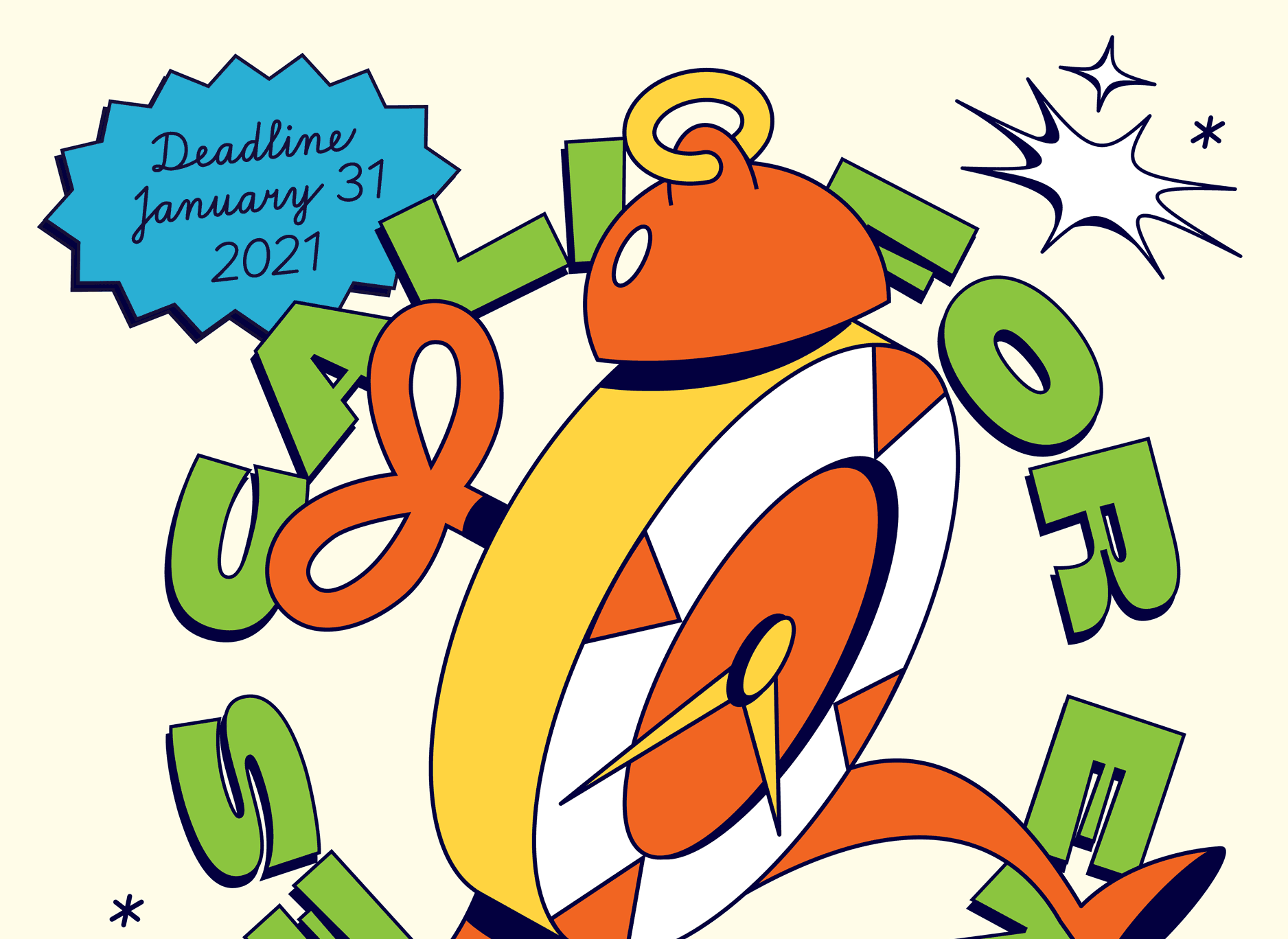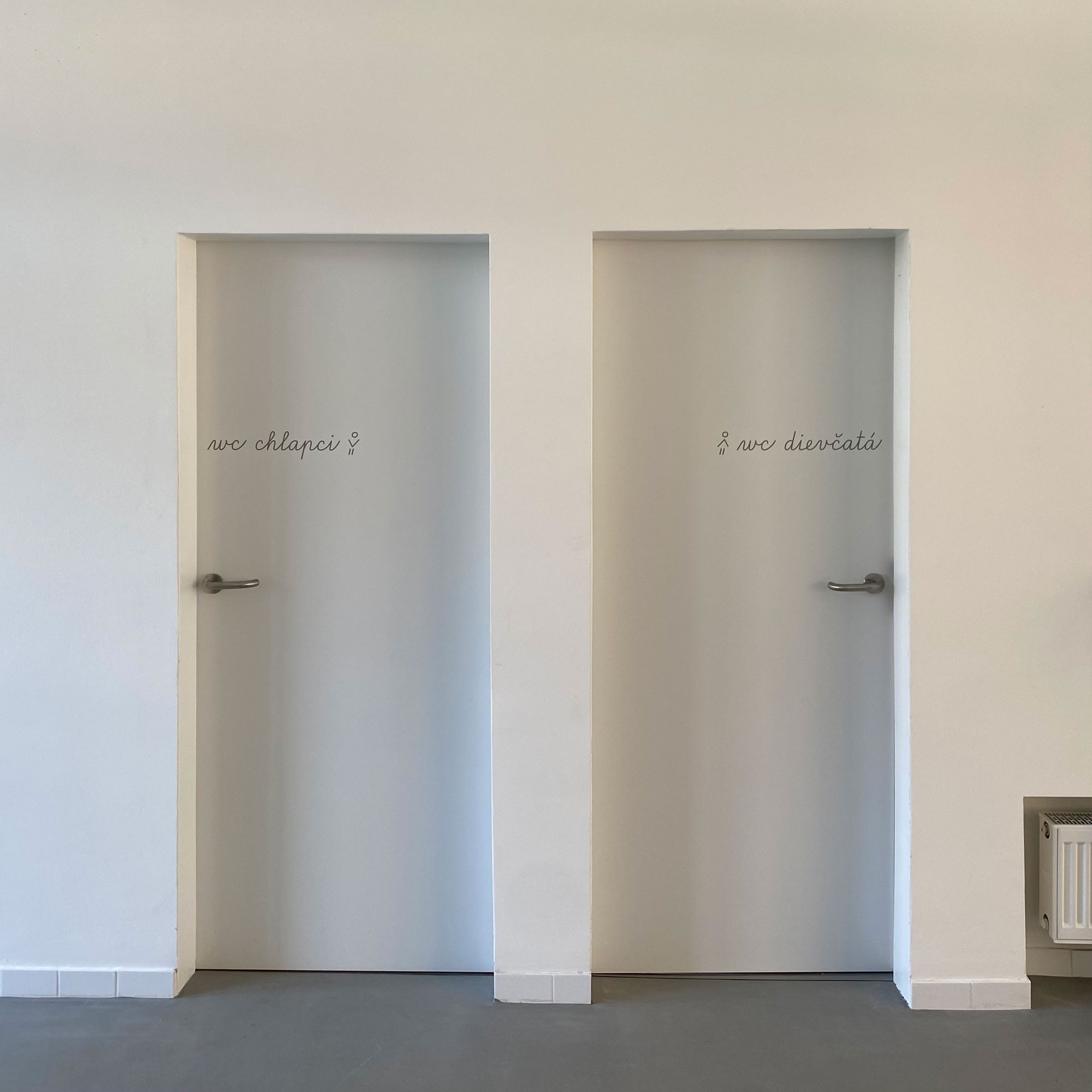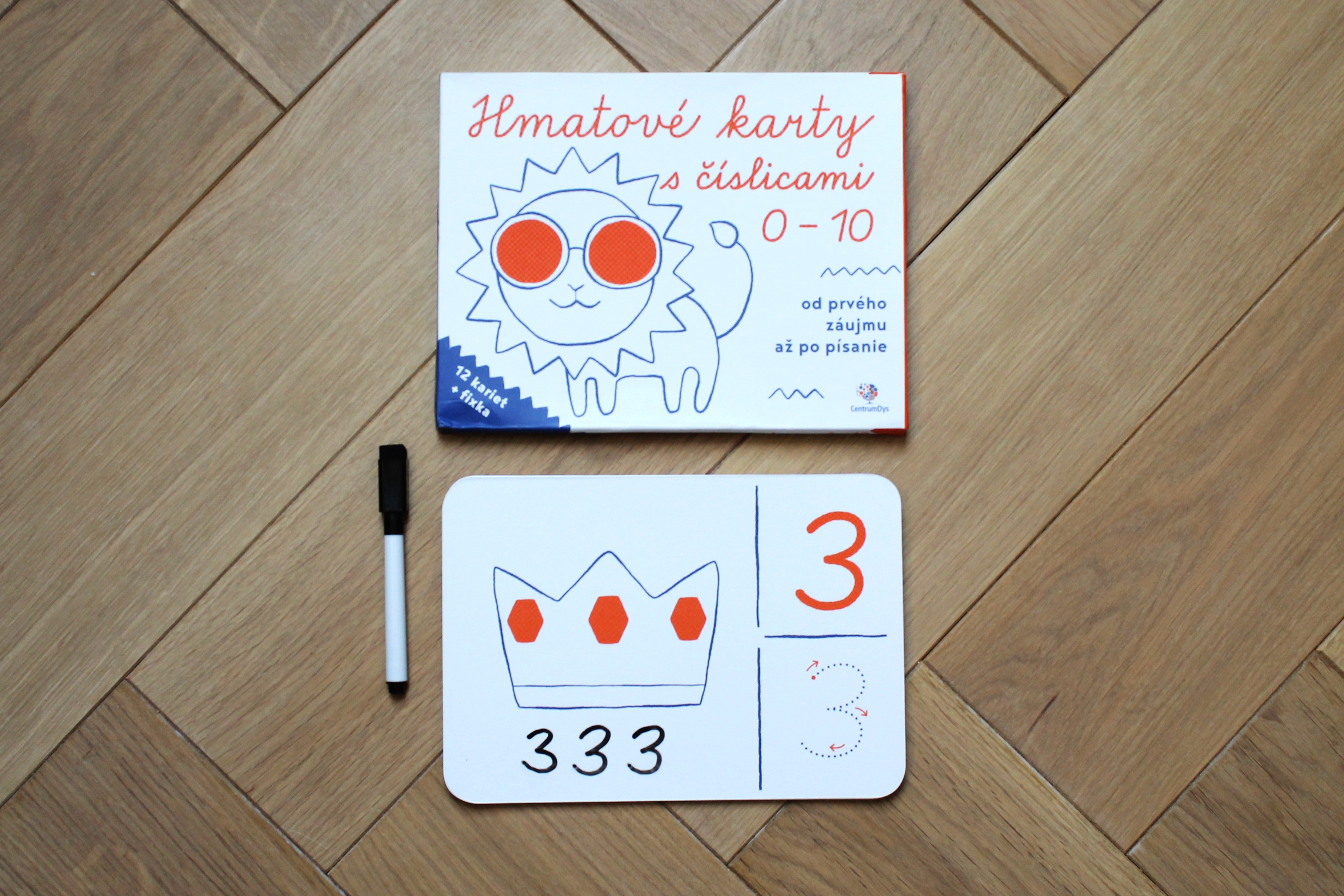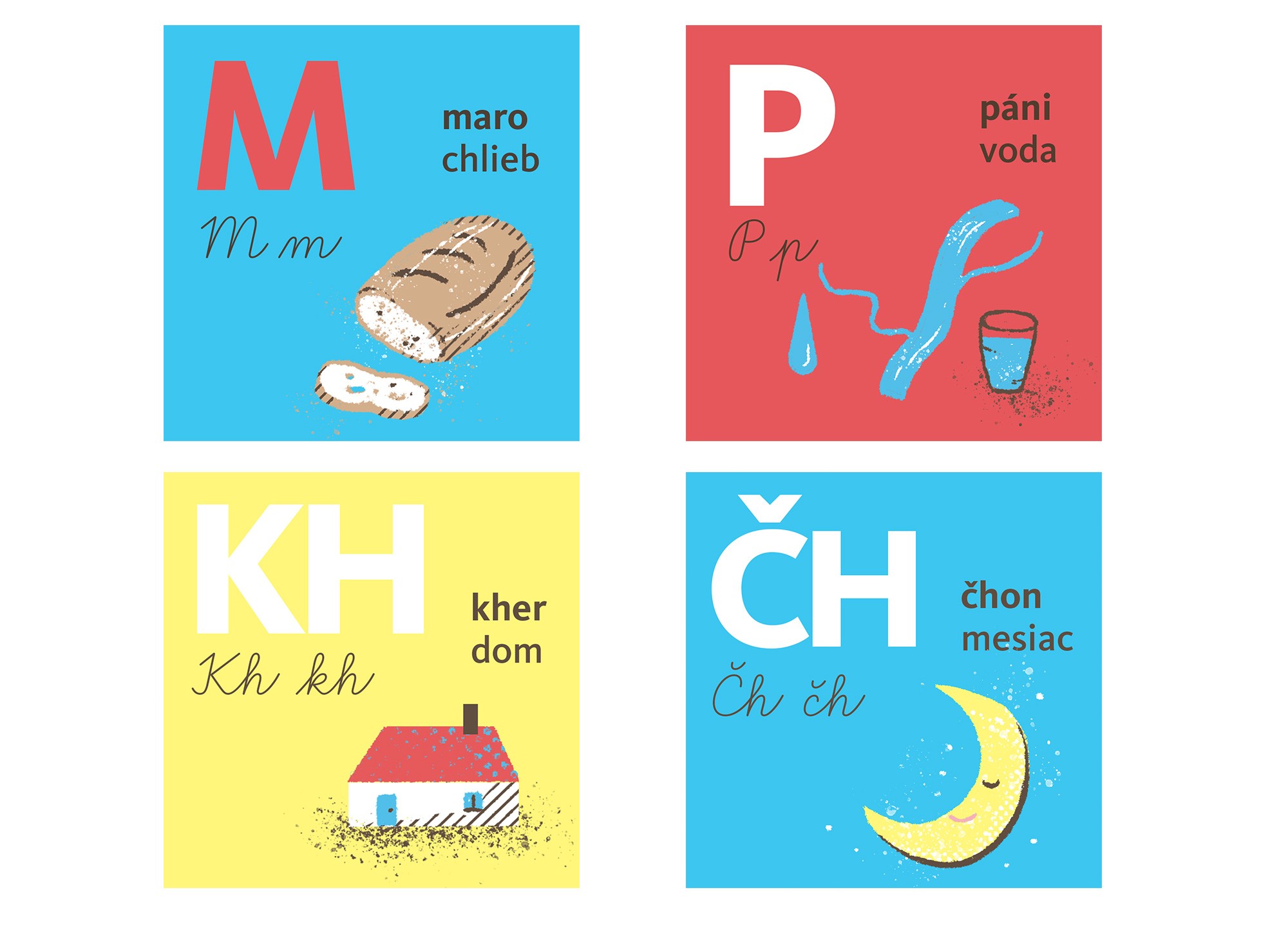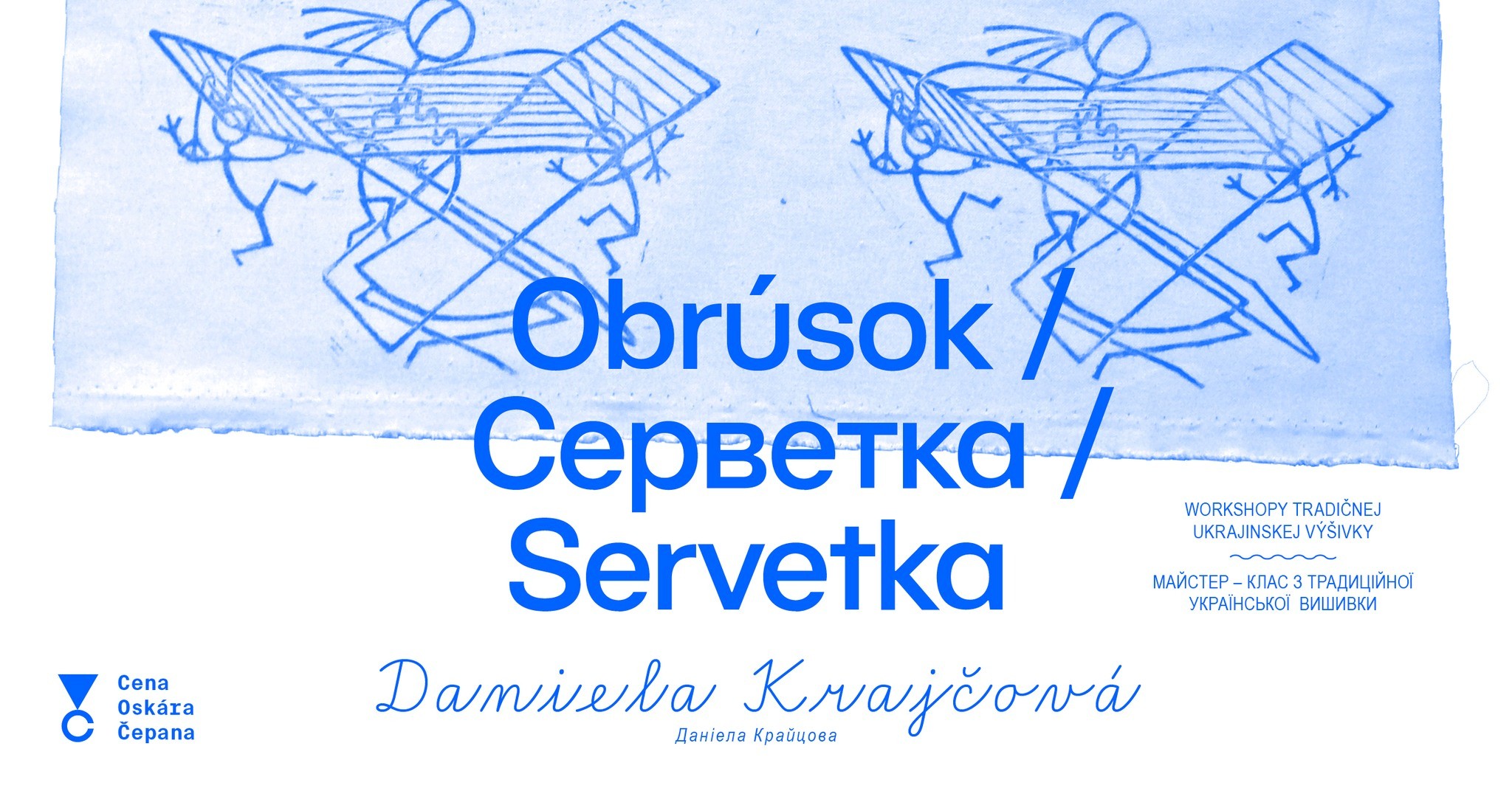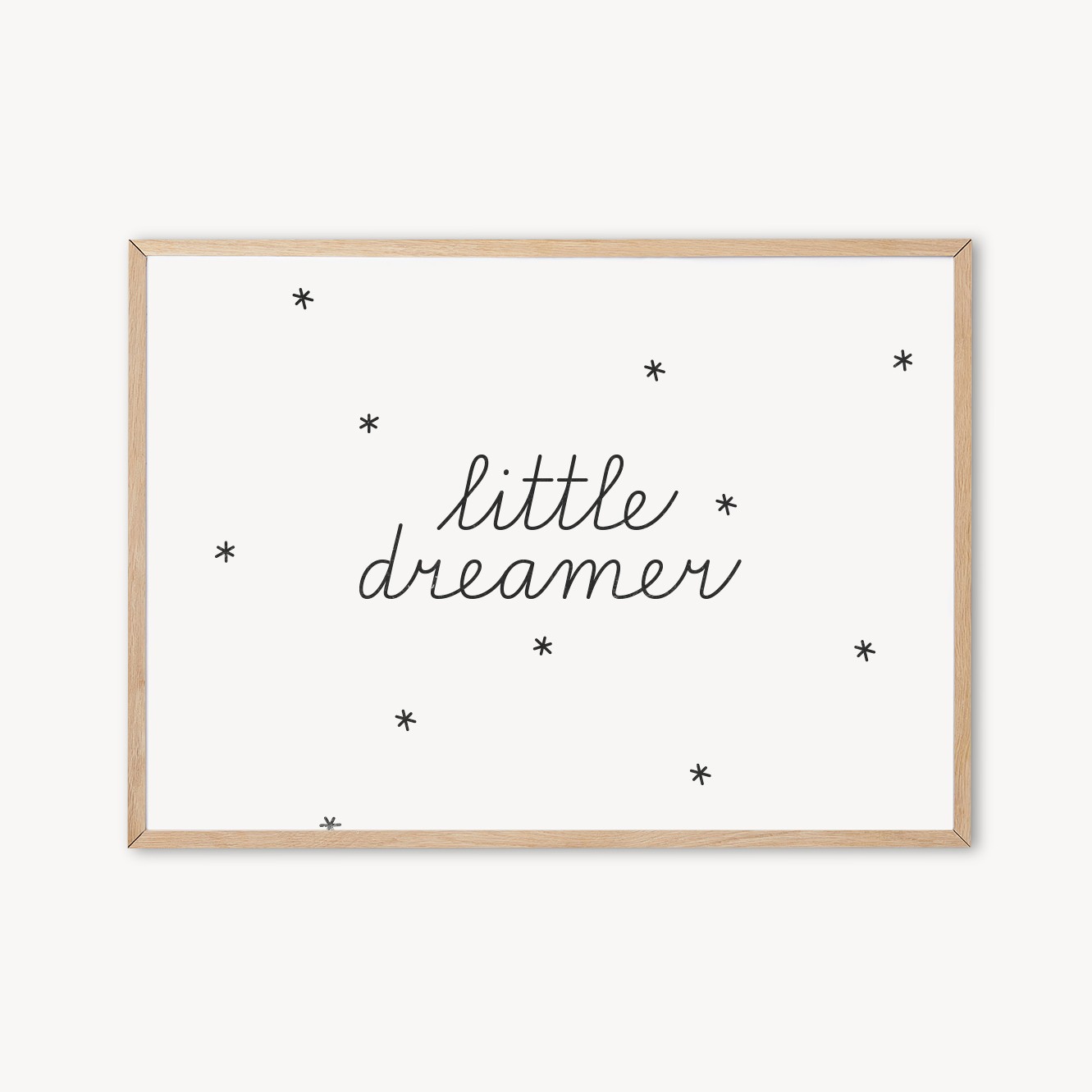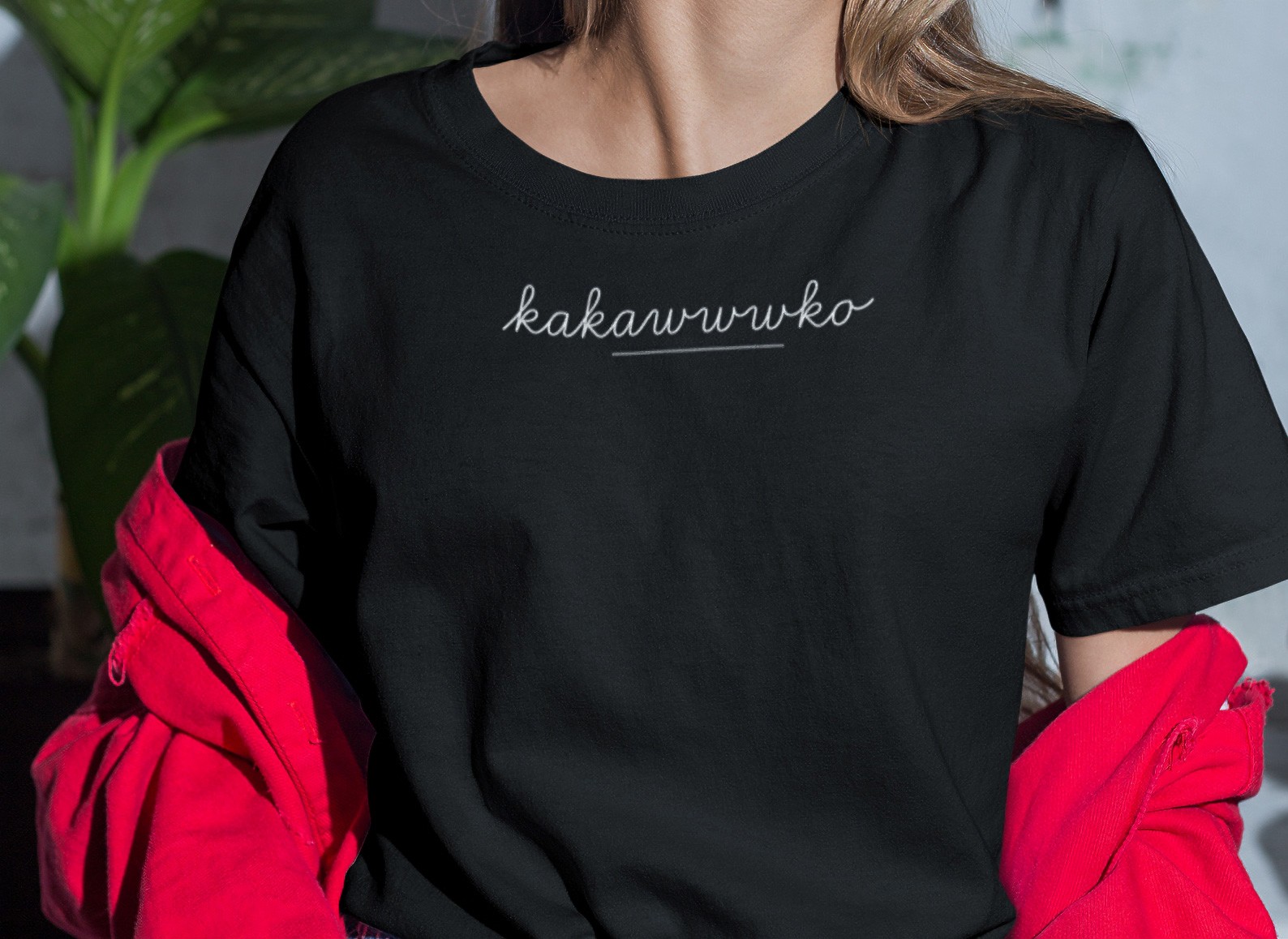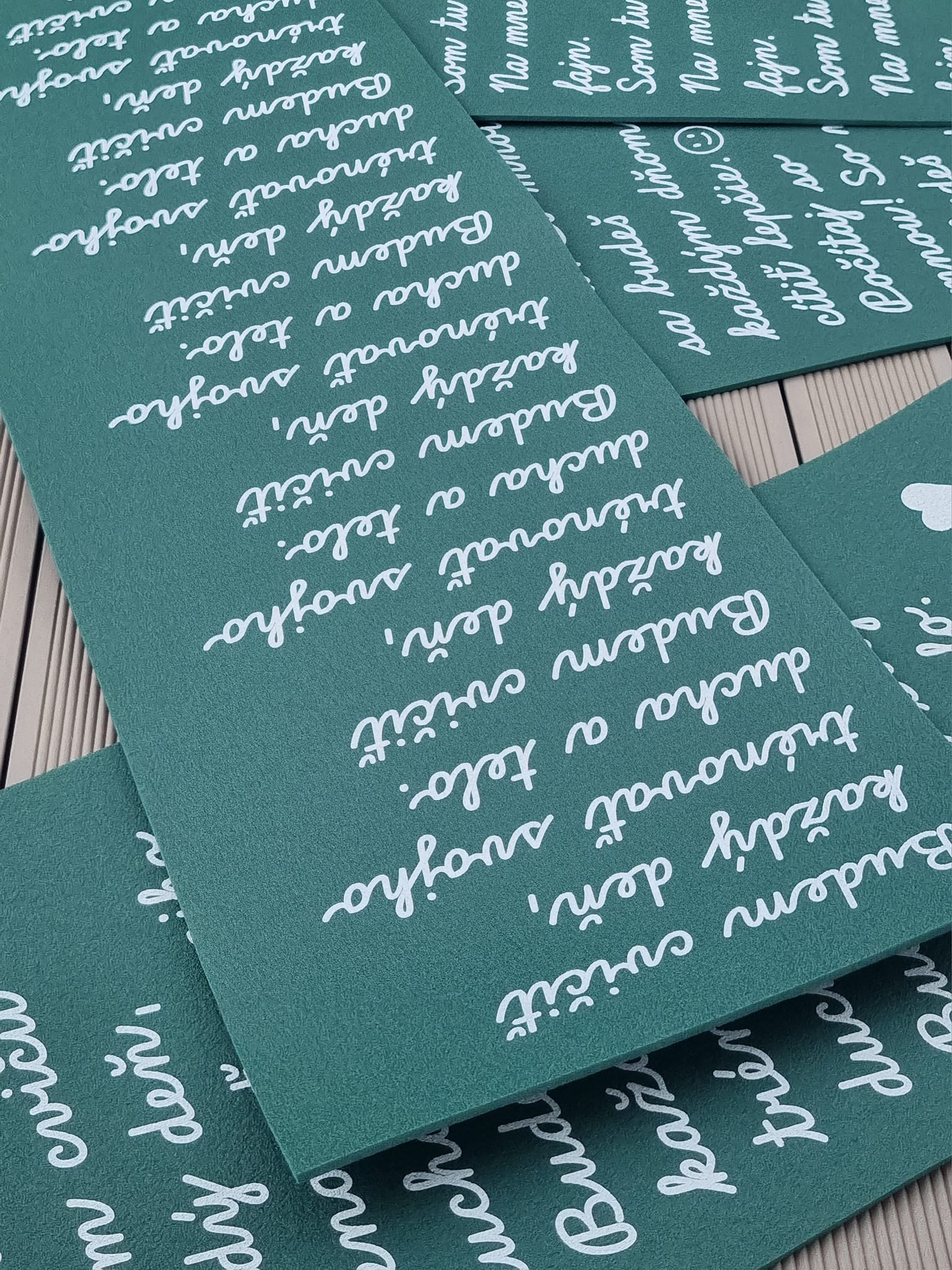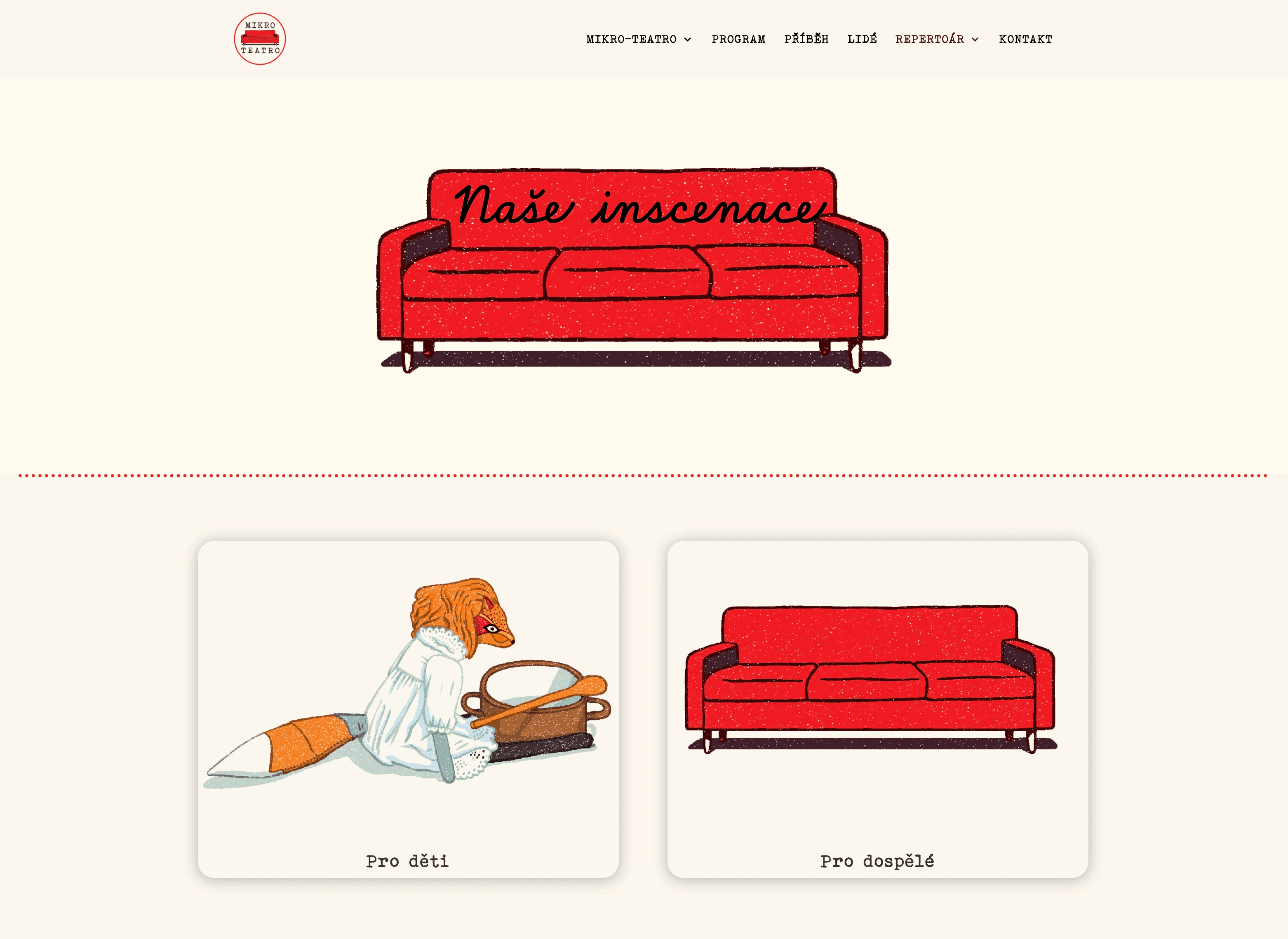
Contemporary digital version of slovak school type
About Skolske Typeface
Contemporary digital version
of slovak school type
Slovak handwriting type is used in schools for almost 100 years without any significant changes. However, it does not support features necessary in modern education process: it is not suitable for left-handers, children with learning disabilities and most importantly, no digital version is available.
Our project objective was not only to create digital version of the existing school type, but also modernisation and improved legibility suitable for better learning process and usability. We studied and analysed history of current school type and consulted new features with education experts.
The result is modernised digital school type Skolske. We are providing it free of charge to schools, graphic designers and publishing houses to support their mission for easier and modern education.
Two versions are available. Skolske Free (free for school printed materials) and Skolske Pro (for commercial products – print, web, apps and other uses). Skolske Free supports Slovak language. Skolske Pro supports European languages and contains figures and other necessary characters for typesetting.
Skolske Layers
Skolske Layers is additional font package for Skolske Family. It contains Lines, Dots, Beginnings and Arrows. Fonts can be combined with each other in layers or with Skolske Pro Light weight (Skolske Free as well). Lines can be combined with all weights. Dots, Beginnings and Arrows do not contain a function of connected letters. They serve as model of basic letters for children schoolbooks in Slovakia (and Czech Republic).
Script
Ligatures, Discretionary Ligatures, Stylistic Alternates, Tabular Figures, Slashed Zero, Fractions, Ordinals, Subscript / Inferior, Superscript / Superior, Stylistic Set 1, Localized Forms